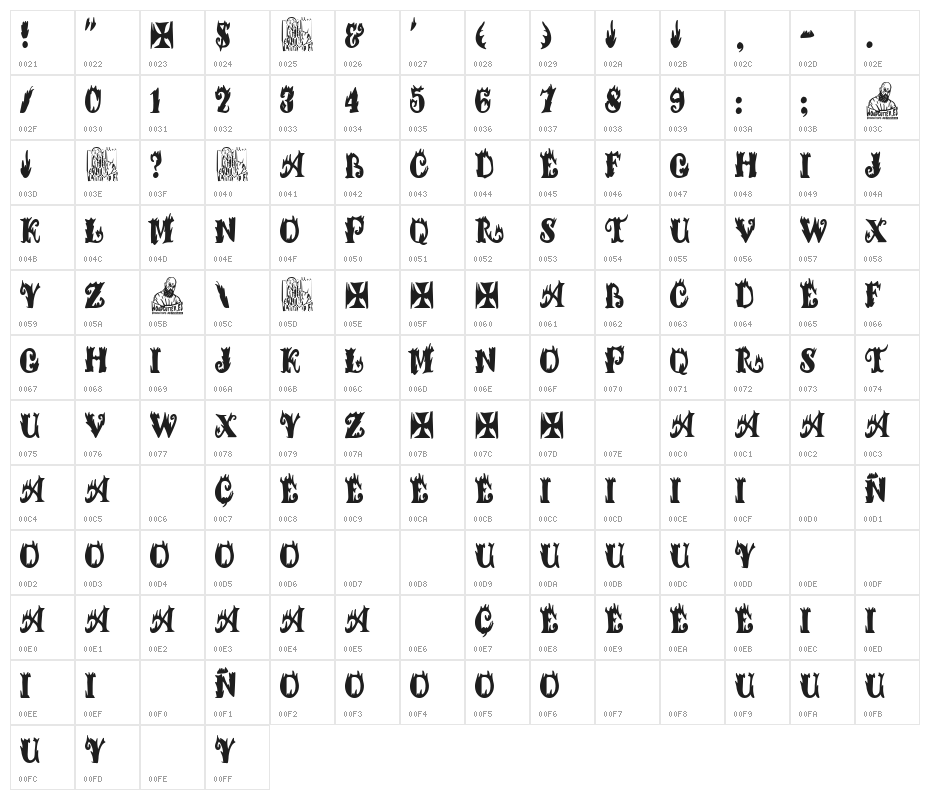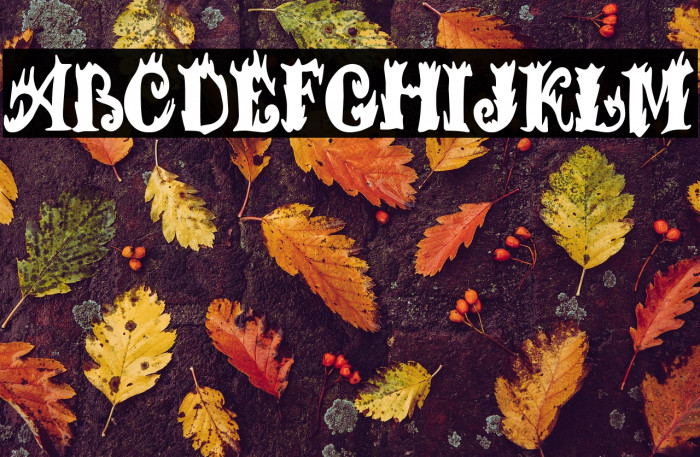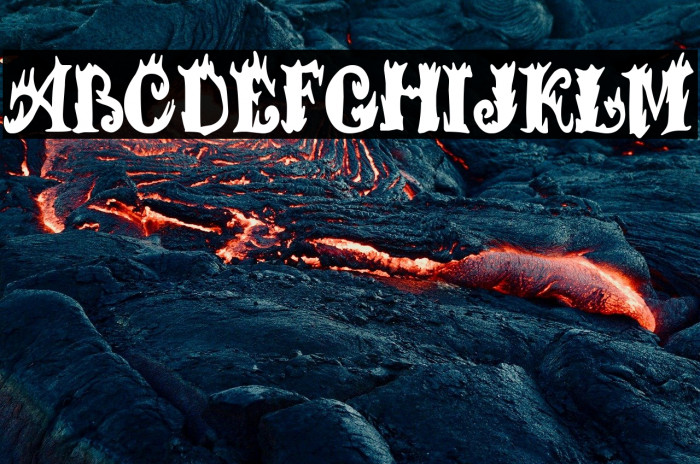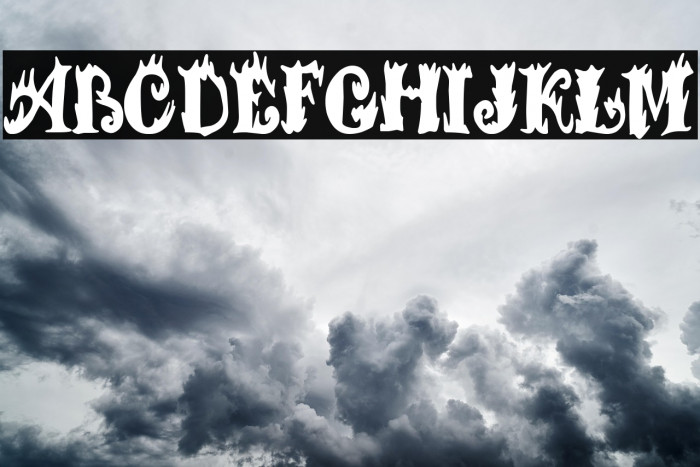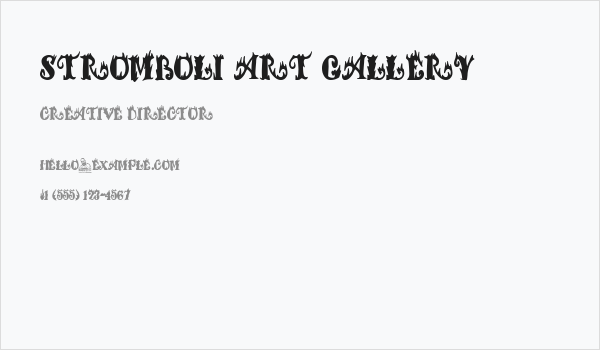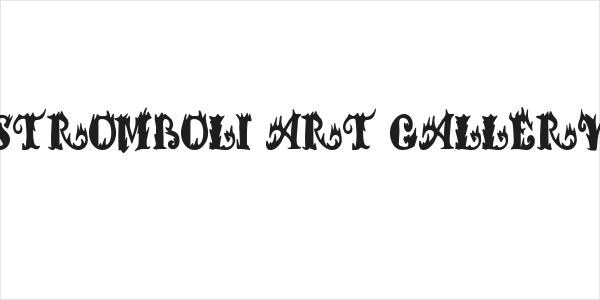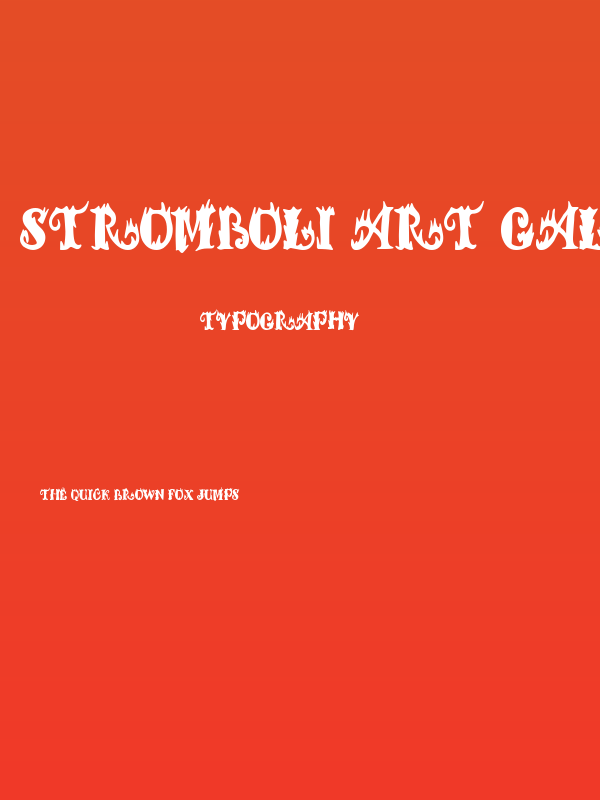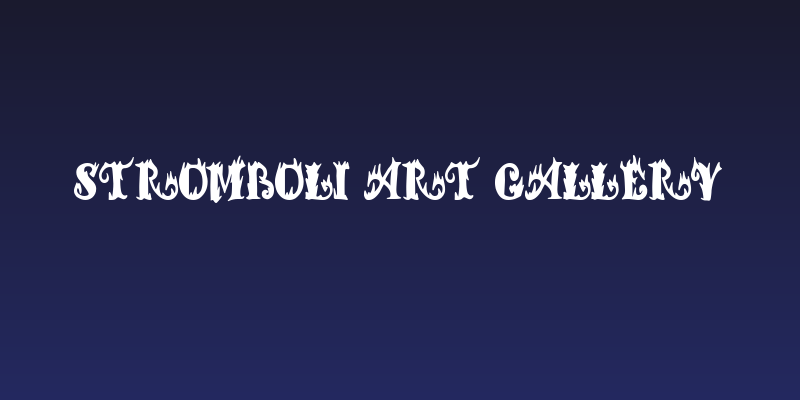
Stromboli Art Gallery Font
Stromboli Art Gallery Description
This font features a bold and dramatic style with flame-like embellishments on each character, creating a sense of movement and intensity. The uppercase and lowercase letters maintain a consistent design, with sharp edges and pointed serifs that enhance the fiery theme. The numerals and special characters follow the same aesthetic, ensuring a cohesive look across all text elements. The overall appearance is striking and eye-catching, making it ideal for projects that require a strong visual impact.
| Proposed Projects | Ideal for use in posters, album covers, event flyers, or any project requiring a bold, eye-catching design. |